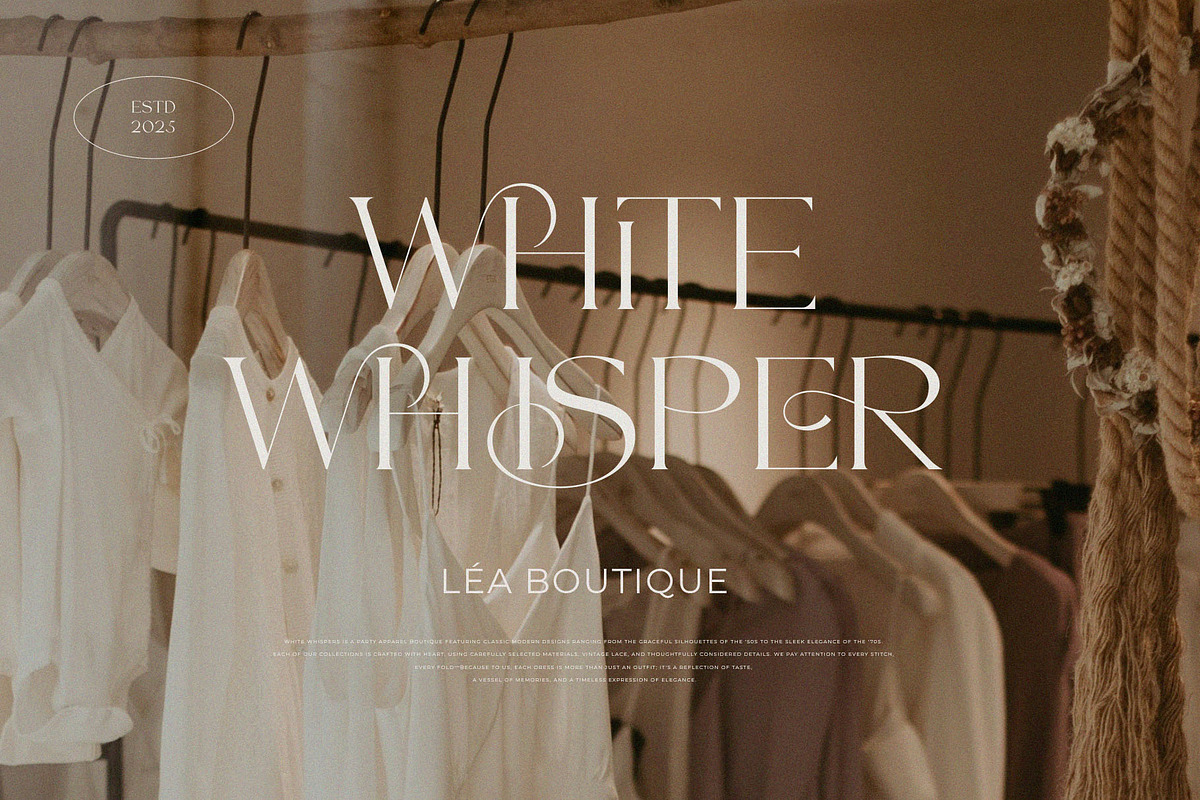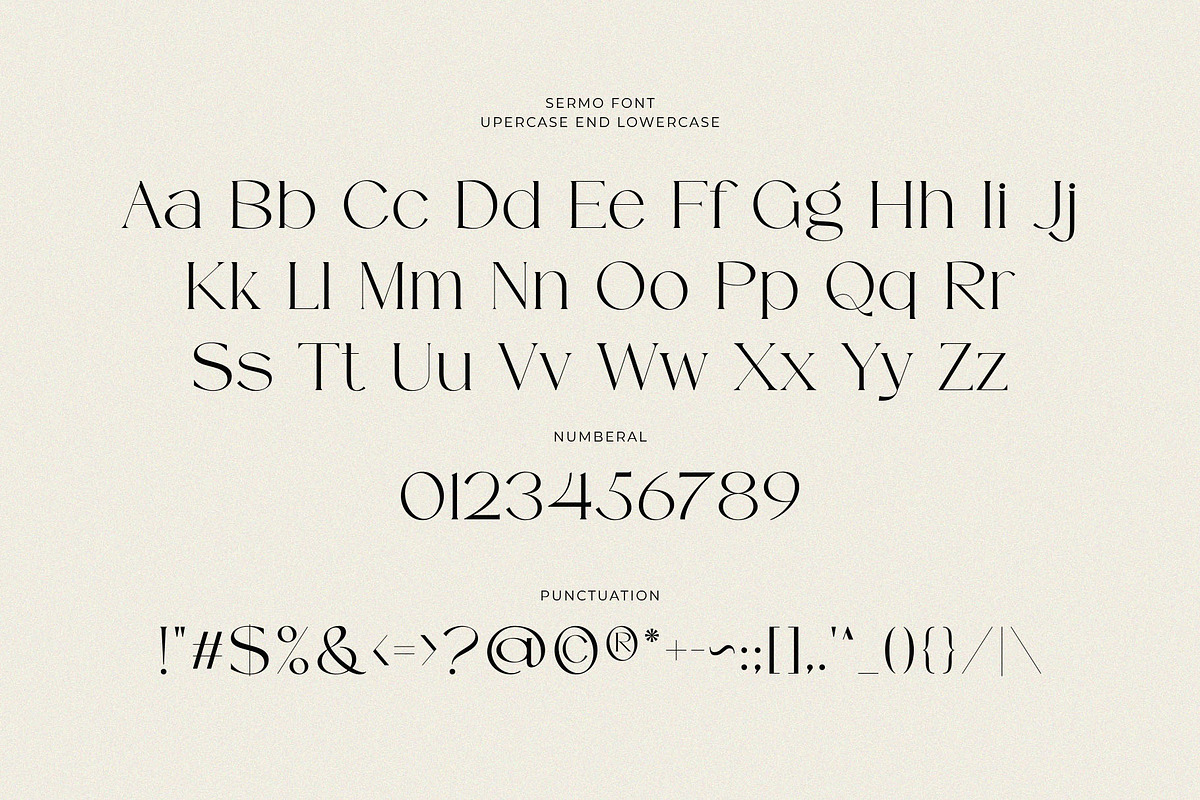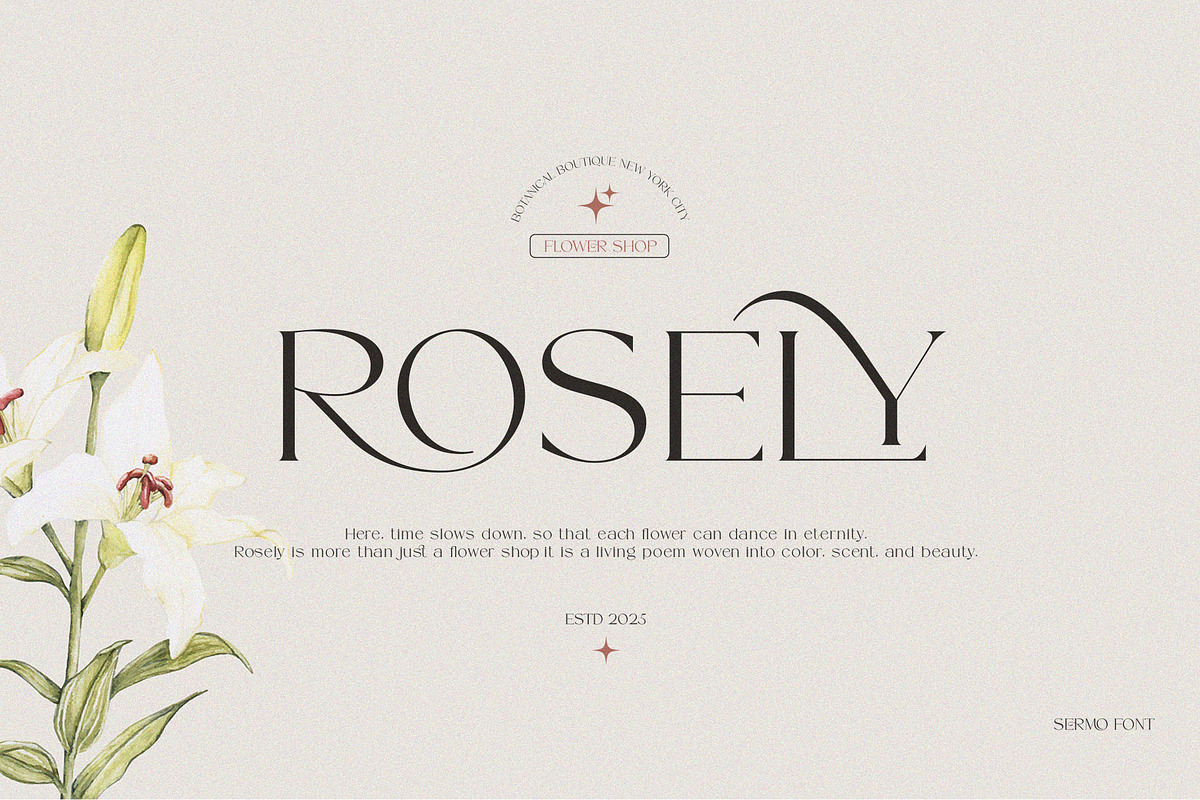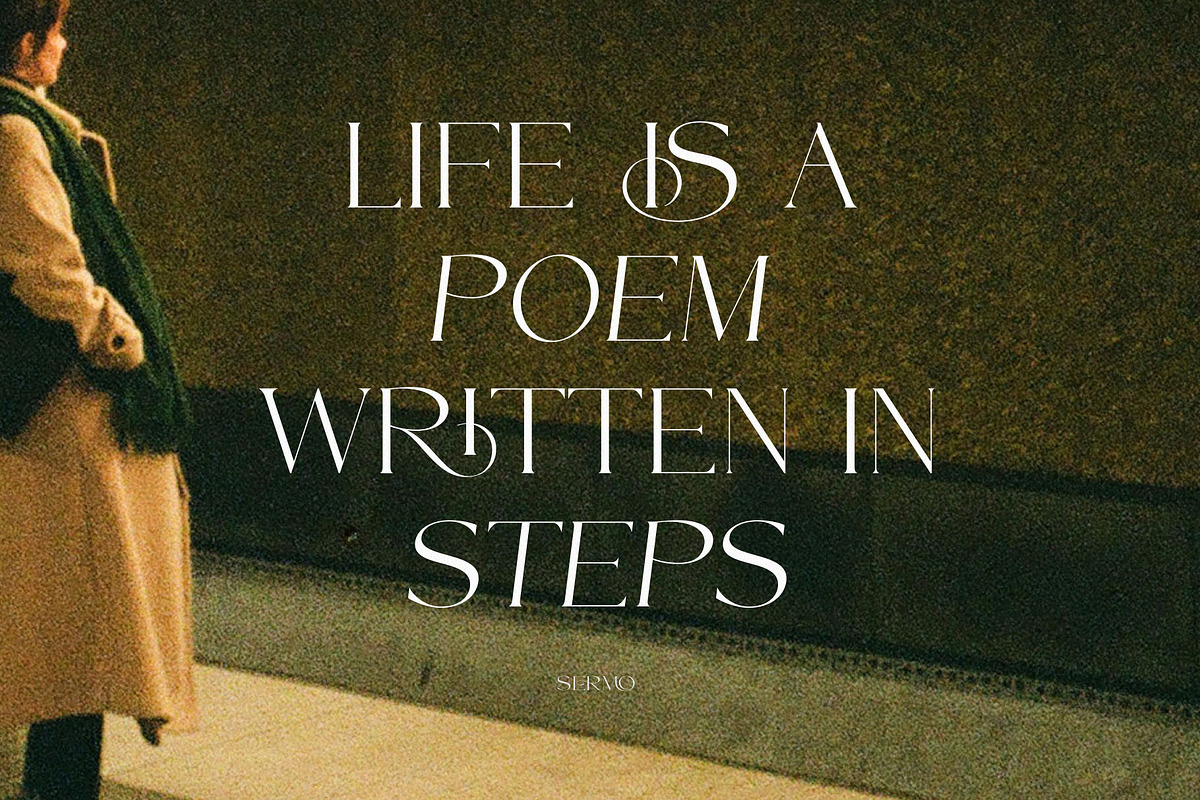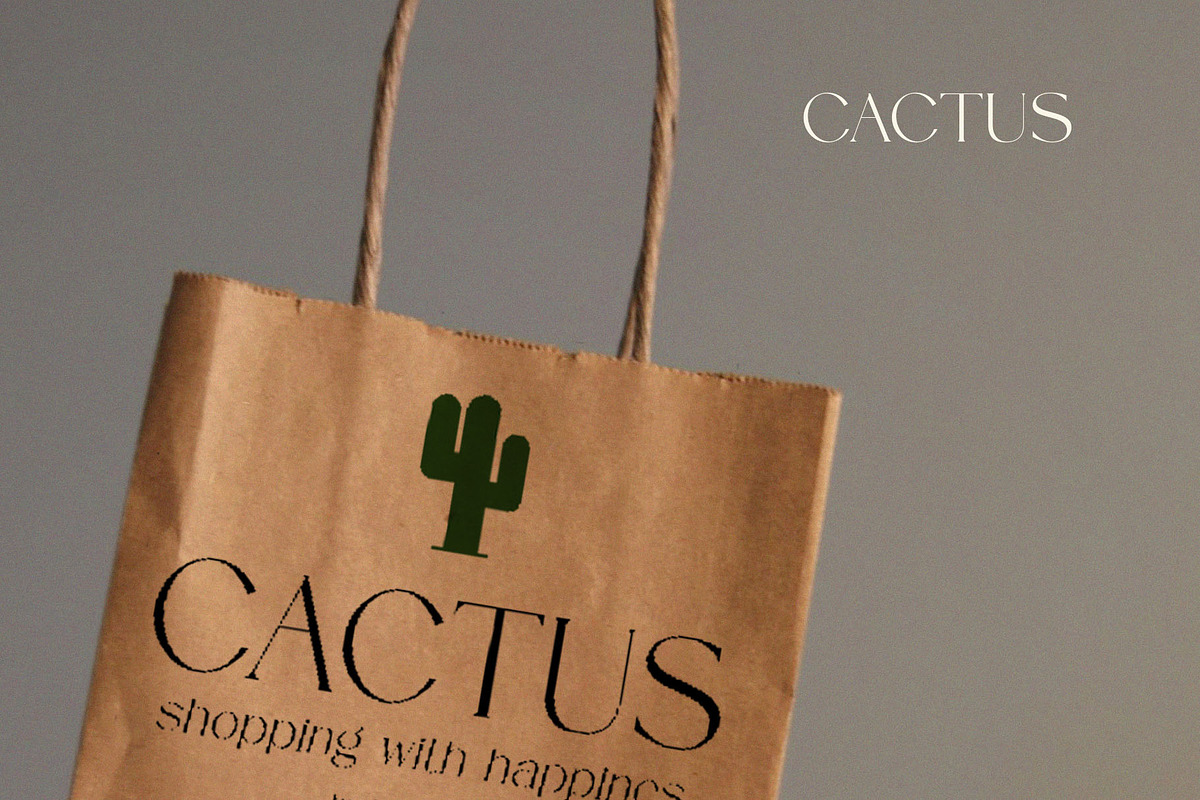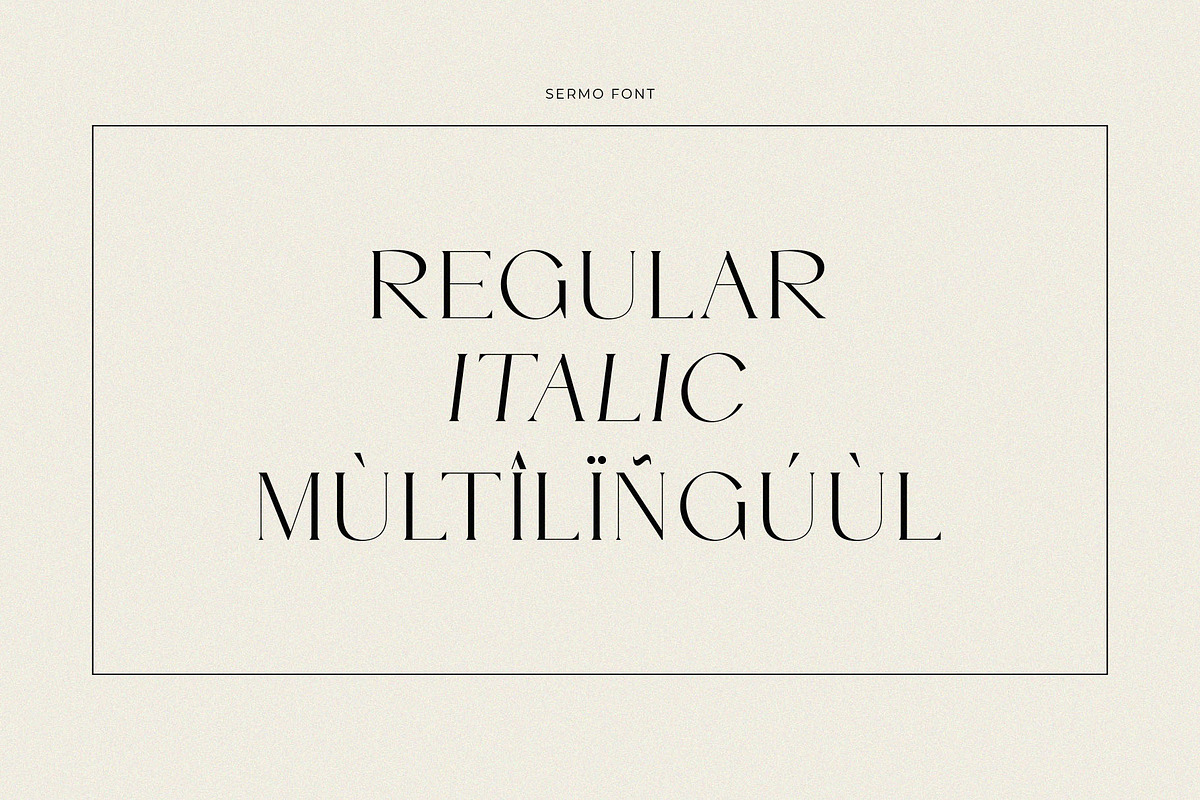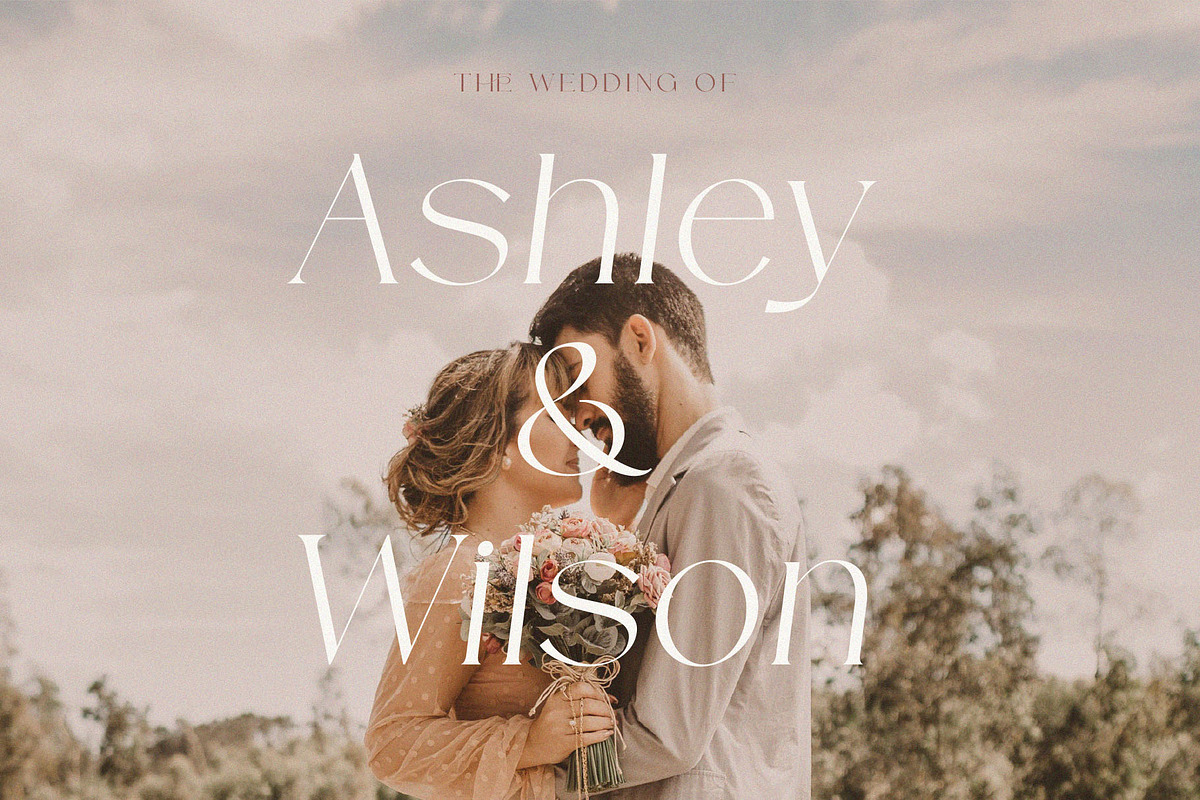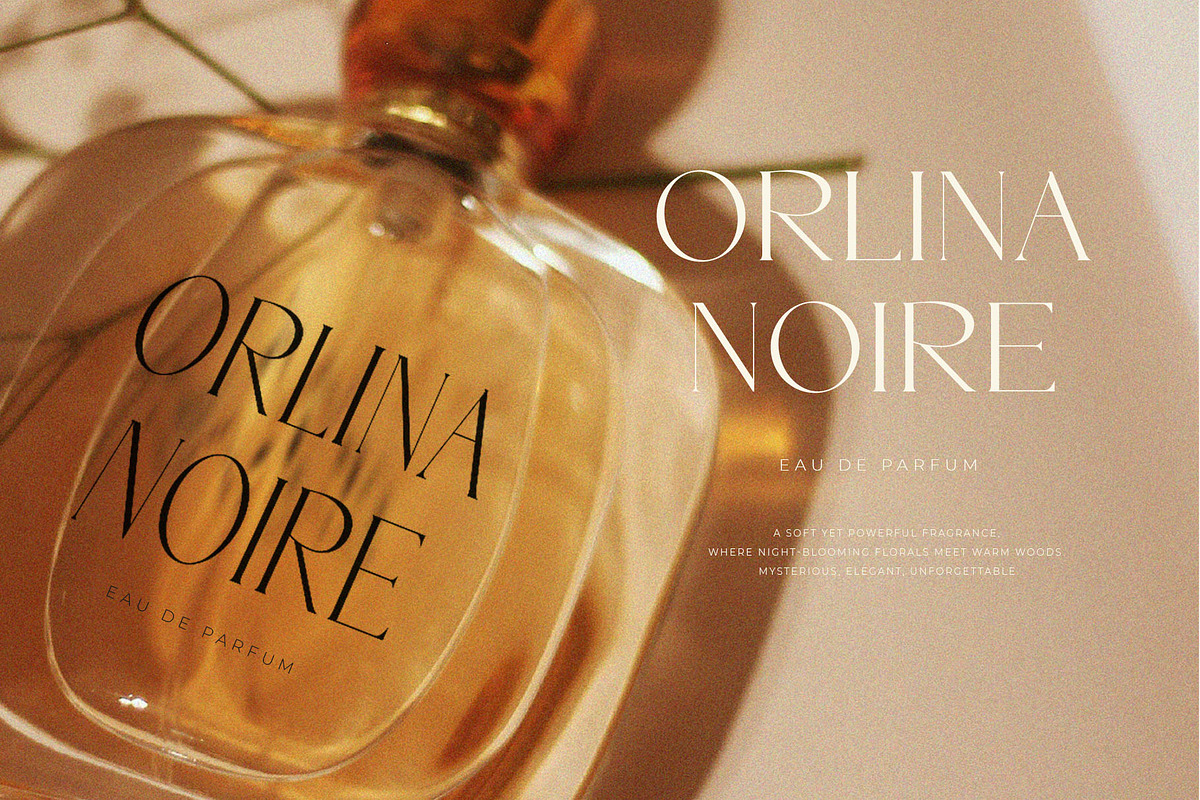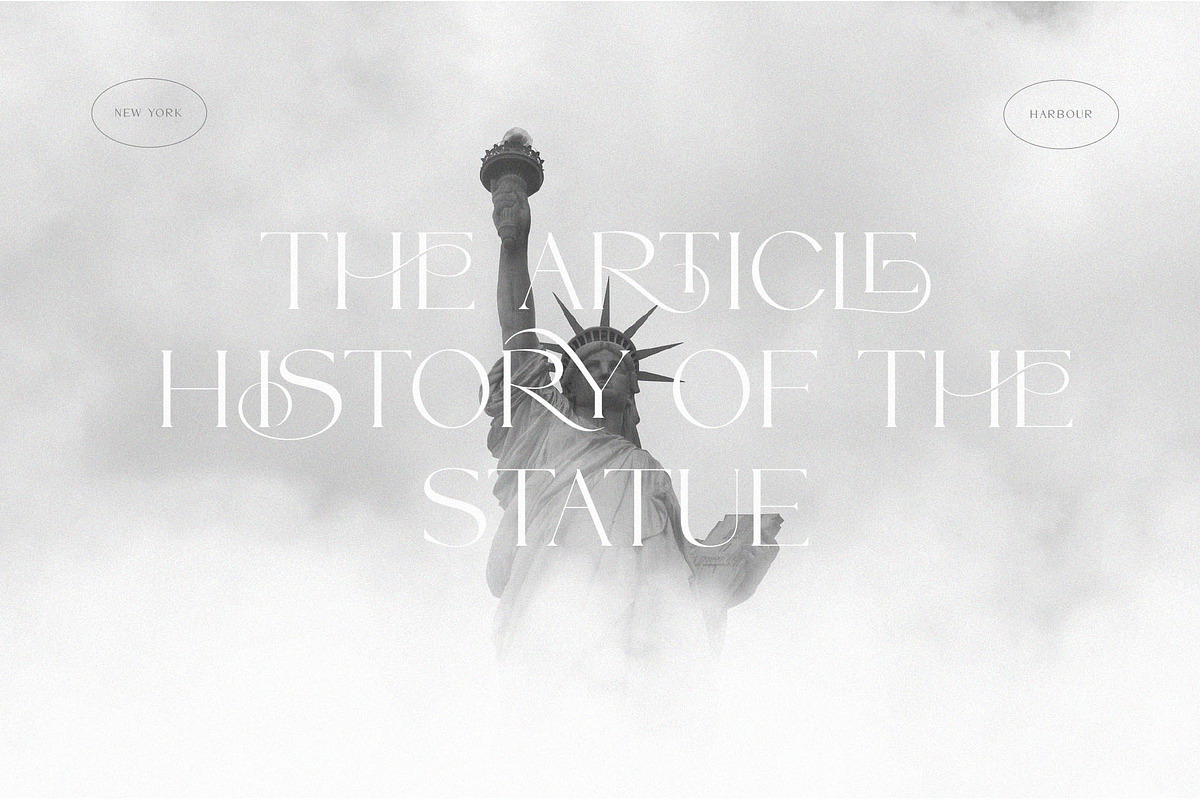
SERMO - elegant serif font
SERMO is a refined serif typeface that blends timeless elegance with a contemporary flair. Designed with high contrast strokes and delicate curves, SERMO evokes a sense of sophistication and classic beauty—making it perfect for editorial designs, luxury branding, fashion headlines, and high-end packaging. Its stylish italic version adds a graceful rhythm, ideal for quotes, subheadings, and callouts that demand attention. Whether you’re designing a refined magazine layout or a chic logo, SERMO provides a versatile and graceful typographic voice. Perfect for Branding, Editorial Design, Logos, Fashion, Wedding Invitations, Social Media, Packaging
Uppercase & lowercase letters
Numerals & punctuation
Regular and Italic styles